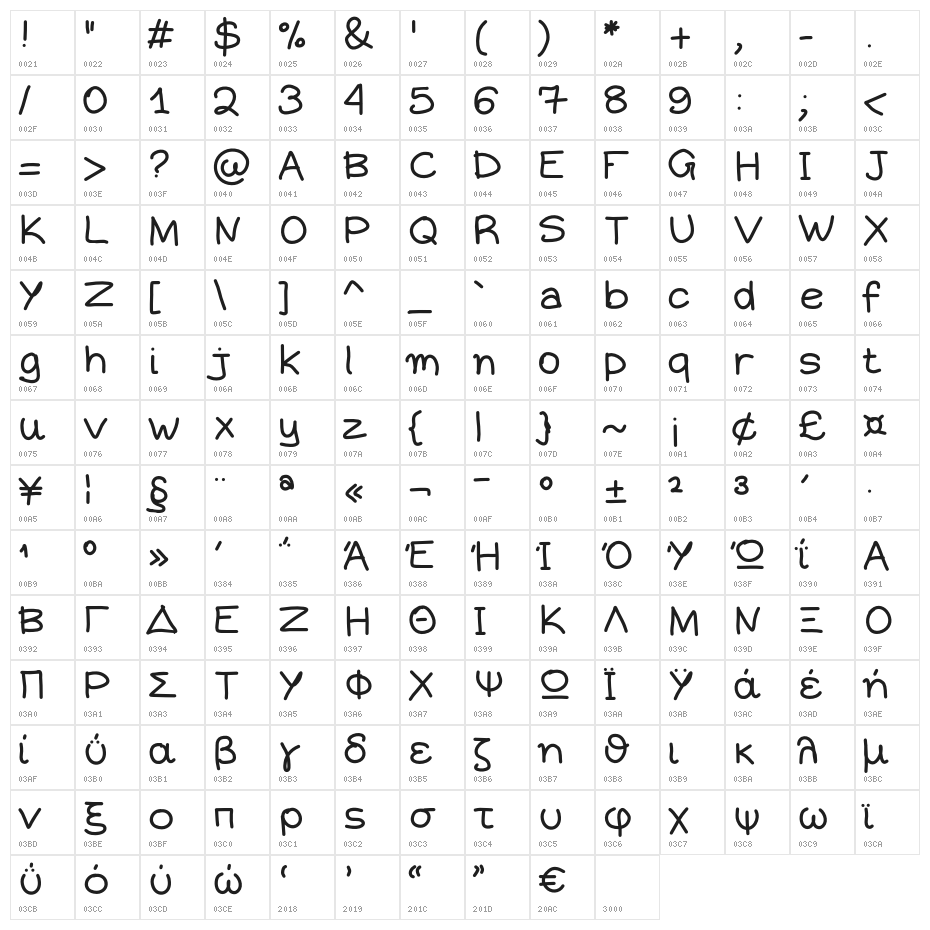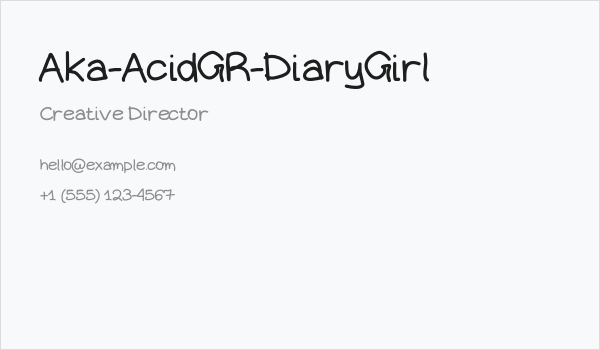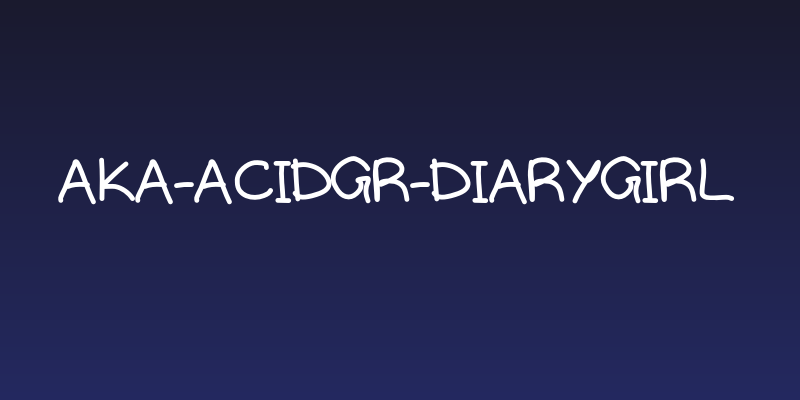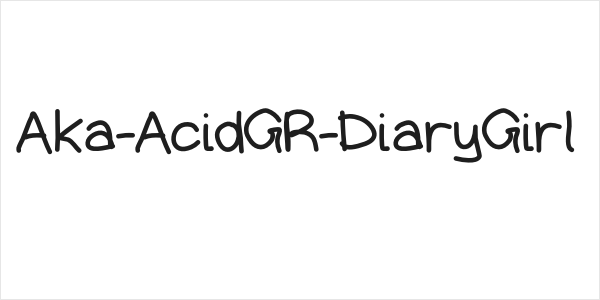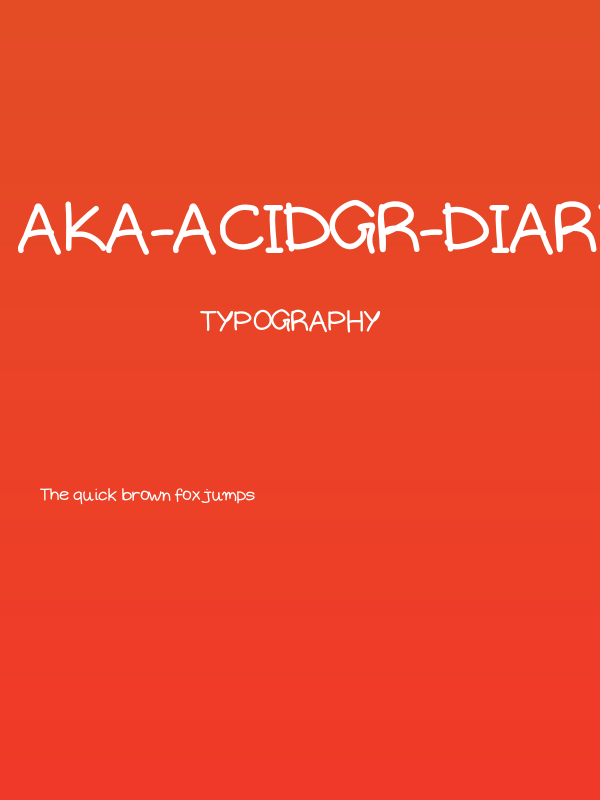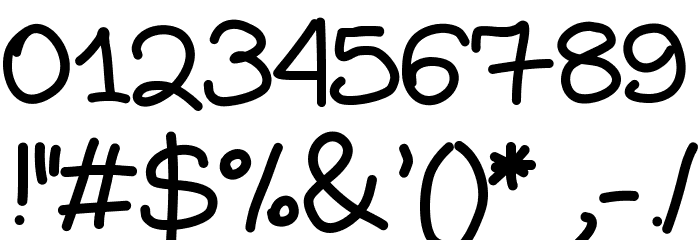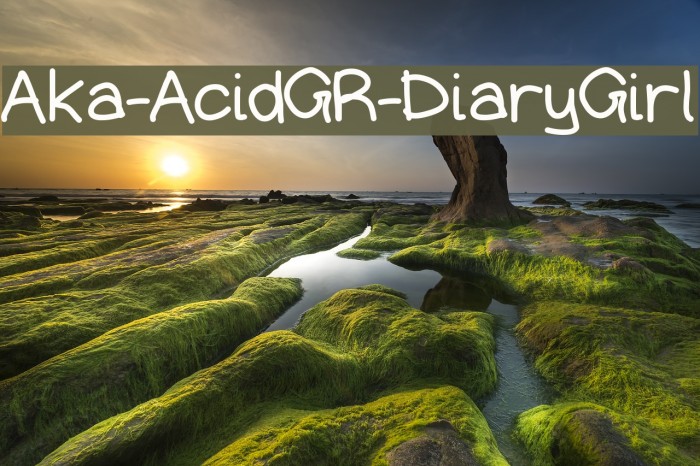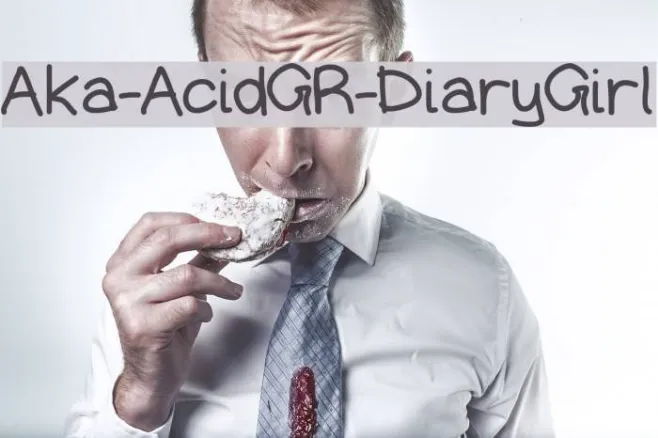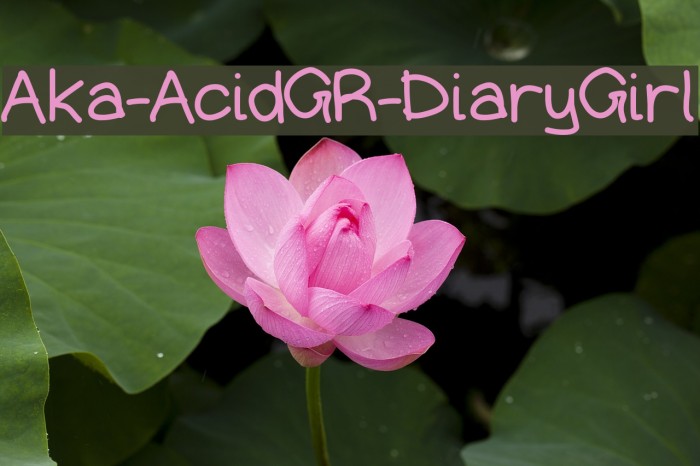
Aka-AcidGR-DiaryGirl Font
Aka-AcidGR-DiaryGirl Description
This playful and whimsical font features a handwritten style with rounded edges and a casual, friendly appearance. The characters are slightly irregular, adding a touch of charm and personality. The uppercase and lowercase letters maintain a consistent flow, while the numbers and special characters blend seamlessly with the overall design. The font's informal nature makes it ideal for projects that require a personal touch, such as greeting cards, children's books, or playful branding. Its legibility and unique style make it versatile for various creative applications.
| Overall Style | Playful |
| Use Case | Headlines, Logos, Informal Text |
| Proposed Projects | Ideal for greeting cards, children's books, playful branding, and creative projects. |